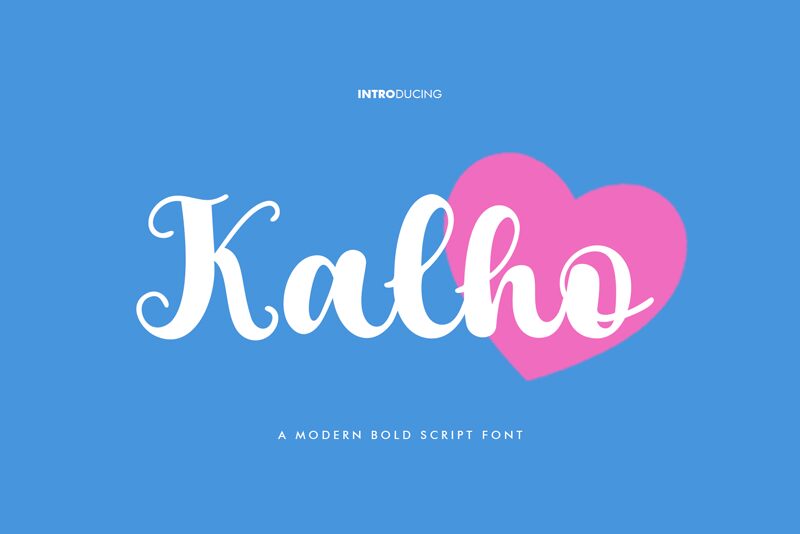
Kalho
Kalho, designed by Khurasan, is a font that embodies the fluidity and expressiveness of a smooth brush stroke with the commanding presence of extra-bold weight. Its sweeping curves and flowing lines reflect a handcrafted quality, while its boldness makes a striking impact on any canvas.
The dynamic contrast of Kalho's voluptuous forms sets it apart as an ideal choice for projects that require a personal touch with visual strength. From branding to advertising, editorial design to packaging, this font's unique blend of elegance and intensity ensures it will stand out.